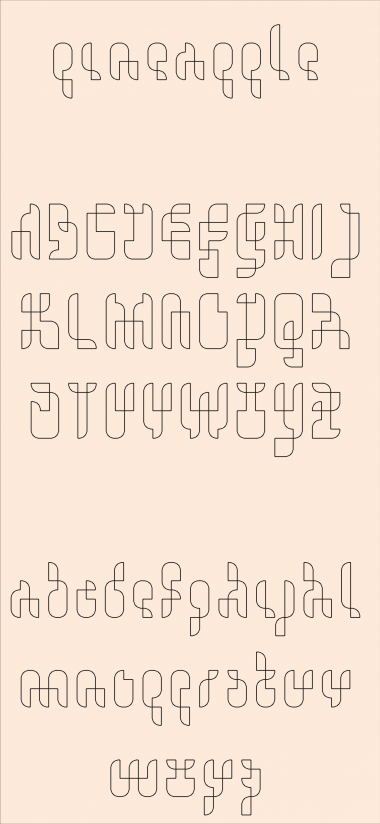
pineapple
Oh so unusual, it would look great as a neon sign. Maybe the f should go to caps height?
Instant top pick for me. 10/10
Works really well, very readable as well.
I agree with Aeolien about the 'f'.
thanks - i changed the f.
Oh yes, that looks right :)
'f' lookin' good :)
Very effective loops, great design idea. Well done :) 10/10
It's amazing how the p and q only differ by one detail, but it works! 10/10
Excellent, creative, innovative... Great work of abstraction in the contour of the letters here, ben17!